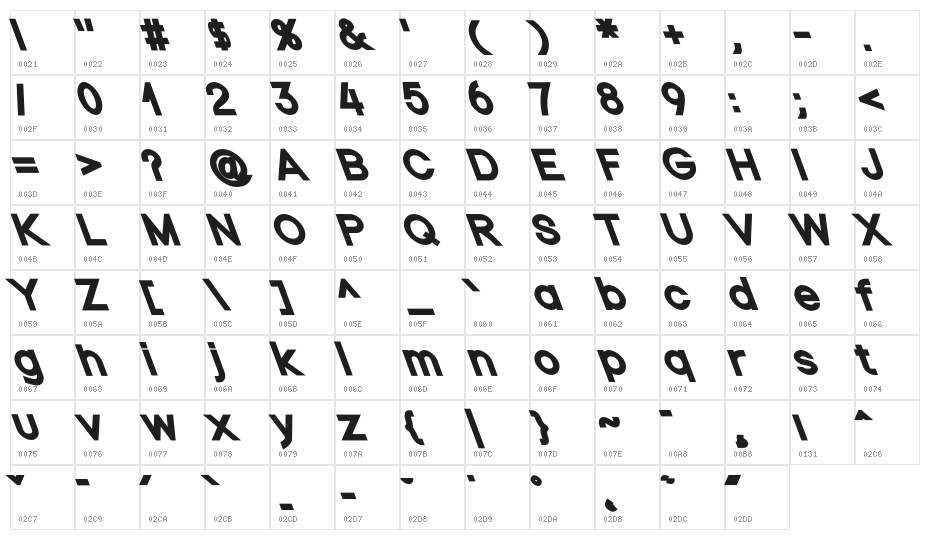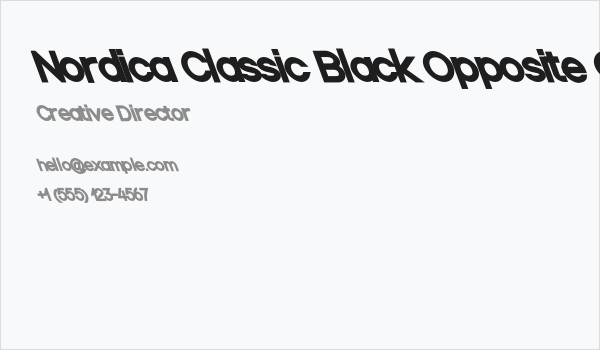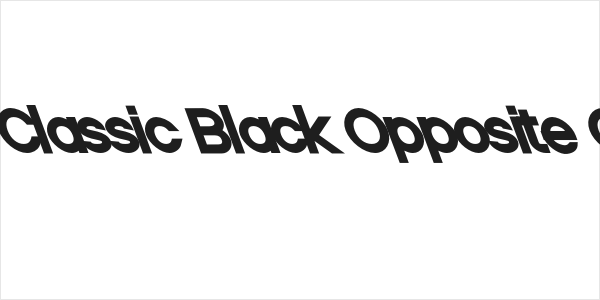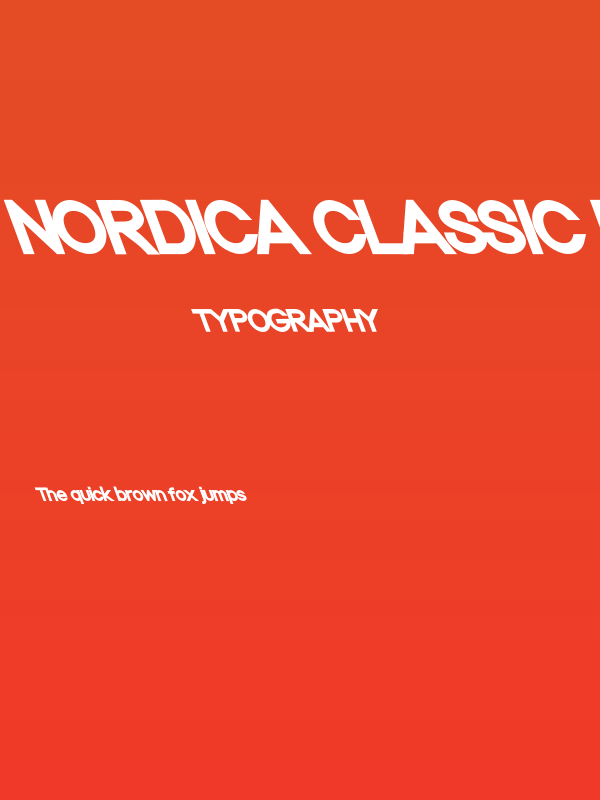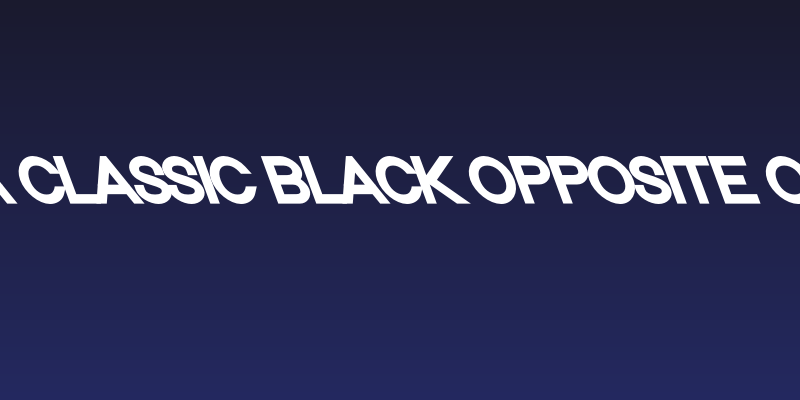
Nordica Classic Black Opposite Oblique Font
Nordica Classic Black Opposite Oblique Description
This font features a bold and dynamic style with a distinct oblique slant, giving it a sense of movement and energy. The characters are robust and thick, with a consistent stroke width that maintains a strong presence on the page. The uppercase and lowercase letters are well-proportioned, ensuring readability while maintaining a unique aesthetic. The numbers and special characters follow the same bold design, making them stand out effectively. This font's overall appearance is modern and impactful, suitable for making a statement in any design.
| Proposed Projects | Ideal for branding, advertising, headlines, and any project requiring a strong visual impact. |